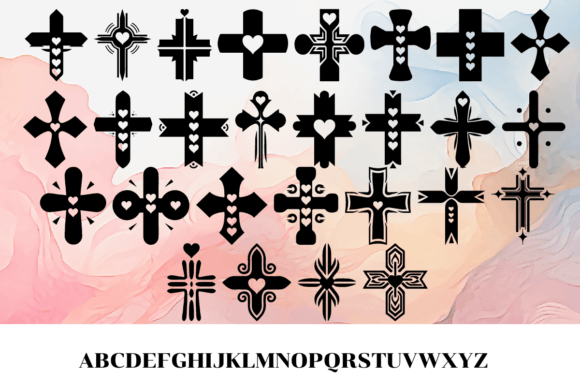
Introducing Cross with Heart Dingbats Fonts: Elevate Your Designs with Faith and Love
Are you a designer, crafter, or DIY enthusiast looking for a unique and meaningful way to add a touch of faith and love to your projects? Look no further! We are excited to introduce the Cross with Heart Dingbats Fonts, a digital product that offers a beautiful collection of 26 characters from A to Z, each featuring a stunning design that combines a cross and a heart.
What are Dingbats Fonts?
For those who may be new to digital design, dingbats fonts are a type of font that features graphical symbols, shapes, or icons instead of traditional letters. They are often used to add visual interest and personality to designs, and can be used in a variety of creative projects, such as scrapbooking, card making, and crafting.
Features of Cross with Heart Dingbats Fonts
The Cross with Heart Dingbats Fonts are a unique and beautiful addition to any design project. Here are some of the key features of this digital product:
- 26 Unique Characters: Each character from A to Z features a stunning design that combines a cross and a heart, creating a beautiful and meaningful symbol that represents faith and love.
Uses for Cross with Heart Dingbats Fonts
The Cross with Heart Dingbats Fonts are versatile and can be used in a variety of creative projects, including:
- Scrapbooking: Add a touch of faith and love to your scrapbook pages with these beautiful dingbats fonts.
- Card Making: Create stunning greeting cards for special occasions, such as weddings, birthdays, and holidays.
- Crafting: Use the Cross with Heart Dingbats Fonts to add a personal touch to your craft projects, such as jewelry, home decor, and paper crafts.
- Digital Design: Use the fonts in your digital designs, such as social media graphics, blog posts, and website headers.
Benefits of Using Cross with Heart Dingbats Fonts
By using the Cross with Heart Dingbats Fonts, you’ll be able to:
- Add Meaning and Symbolism: The cross and heart design represents faith and love, adding a deeper meaning to your designs.
- Stand Out from the Crowd: The unique and beautiful design of the fonts will help your projects stand out from the crowd.